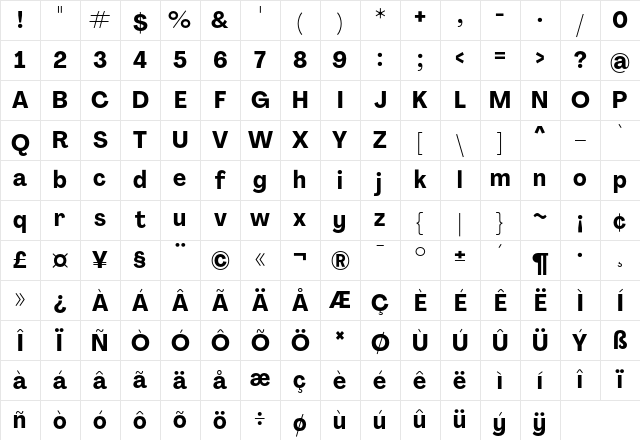
Agrandir Narrow Bold
Foundry: Alexander Slobzheninov
Designer: Alexander Slobzheninov
Design Context for Agrandir Narrow
Agrandir Narrow is a composed and adaptable typeface that performs quietly and consistently across a wide range of design contexts. Its bold stroke weight gives it real presence on the page. Its narrow stance lets it pack a punch even in space-constrained designs.
Who designed the Agrandir Narrow Bold font?